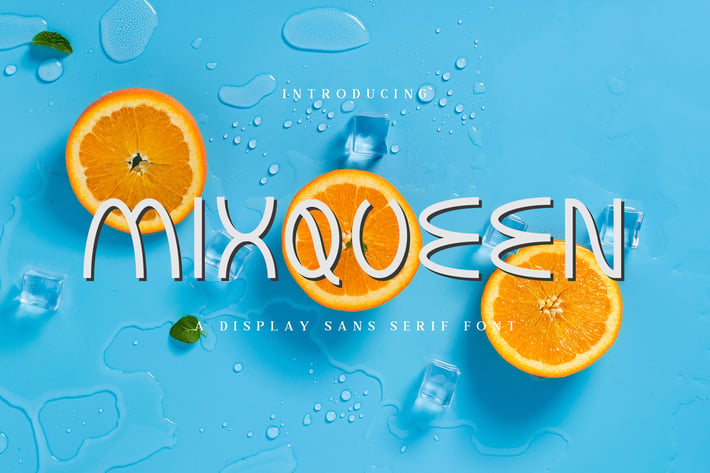
Mixqueen - Display Sans Serif Font
Mixqueen is a display sans serif font. This font looks modern, cute, fancy, readable, stylish, catchy and easy to use.
This font is the best choice for your professional design projects, including : logo, poster design, t-shirt, headline, flyer, cd cover album, quotes, business card, branding, magazines, social media, advertisements, product designs, or something that need modern or futuristic looks.